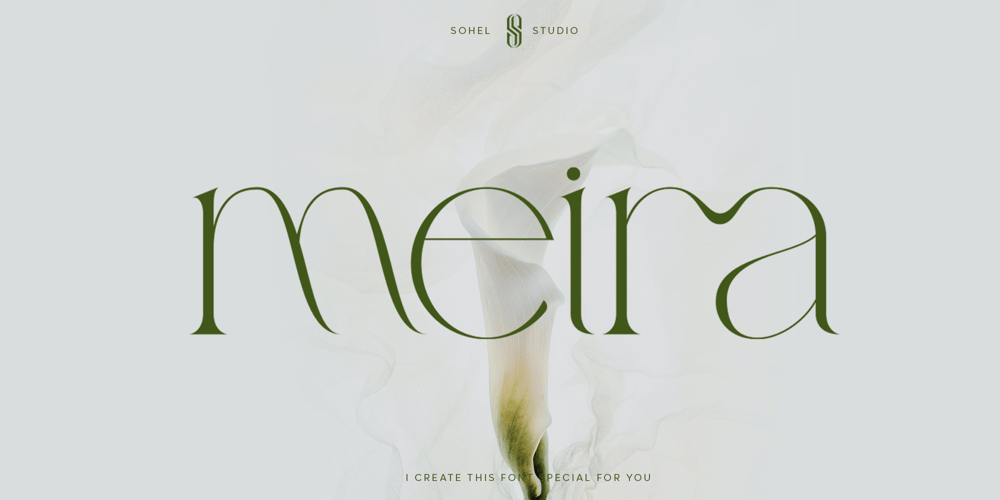
Meira
Meira font
Meira Font Family was designed by Akhmad Husain Rifa’i and published by Sohel Studio. Meira contains 1 styles and family package options. Meira is a Modern serif typeface Unique alternate , multilingual support with perfect kerning. This typeface is perfect for an elegant & luxury logo , classy editorial design, women’s magazine, fashion brand , cosmetic brand, fashion promotion , modern advertising design, invitation card, art quote, home decoration , book/cover titles, special events, and much more.Meira Features: · Uppercase & Lowercase · Alternates & Ligatures · Numerals & Punctuation · Accented characters · Multilingual Support · Unicode PUA EncodedIf you want the SVG version please contact me. Thanks and have a wonderful day .